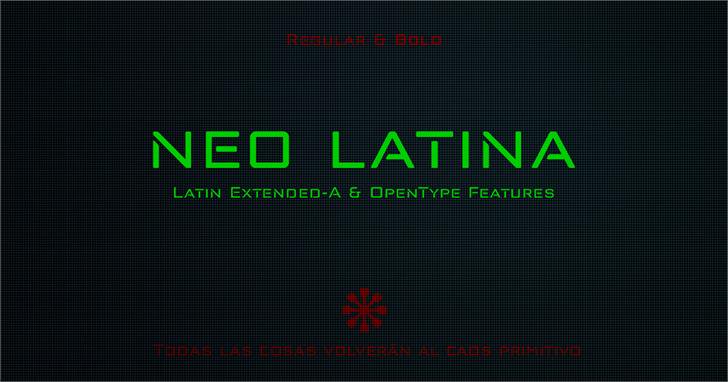
Free neo latina Font
Download and enjoy this free neo latina font. Cool typeface to showcase your designs in a modern way. Font Space has created this amazing and beautiful free font. You can create a professional designs with this beautiful font.